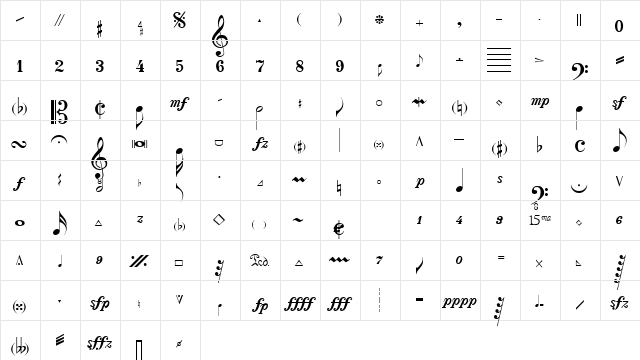
Violine Regular
Design Context for Violine Typeface
Violine is a composed and adaptable typeface that performs quietly and consistently across a wide range of design contexts.